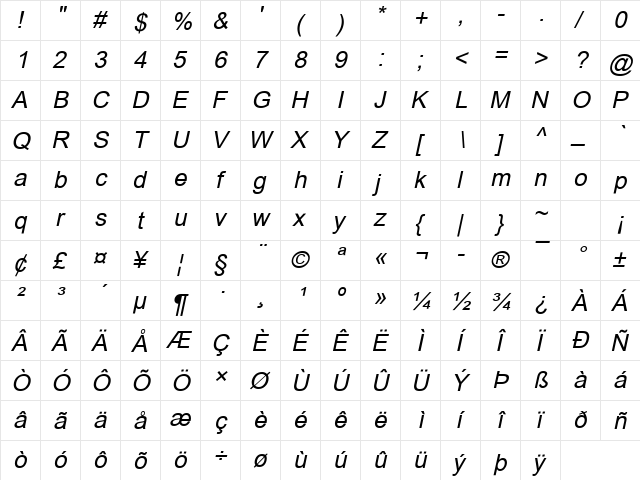
Garuda Oblique
Design Context for Garuda Typeface
Garuda takes a measured approach to typography — its balanced proportions and neutral character make it a reliable workhorse for both digital and print work. The slanted form adds forward momentum and visual energy.
Pro Tip: Use Garuda for emphasis, pull quotes, and subheadings where its slanted energy can add rhythm to the layout.